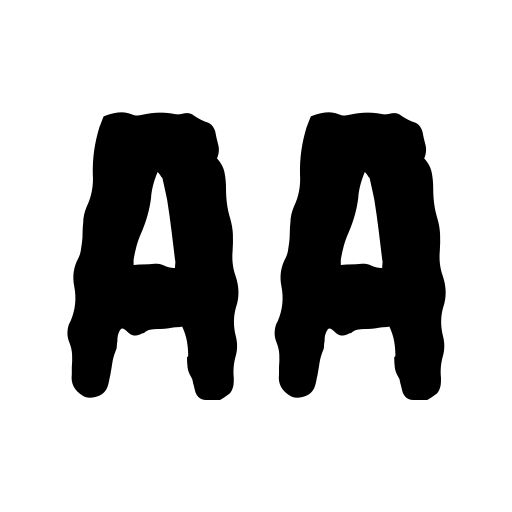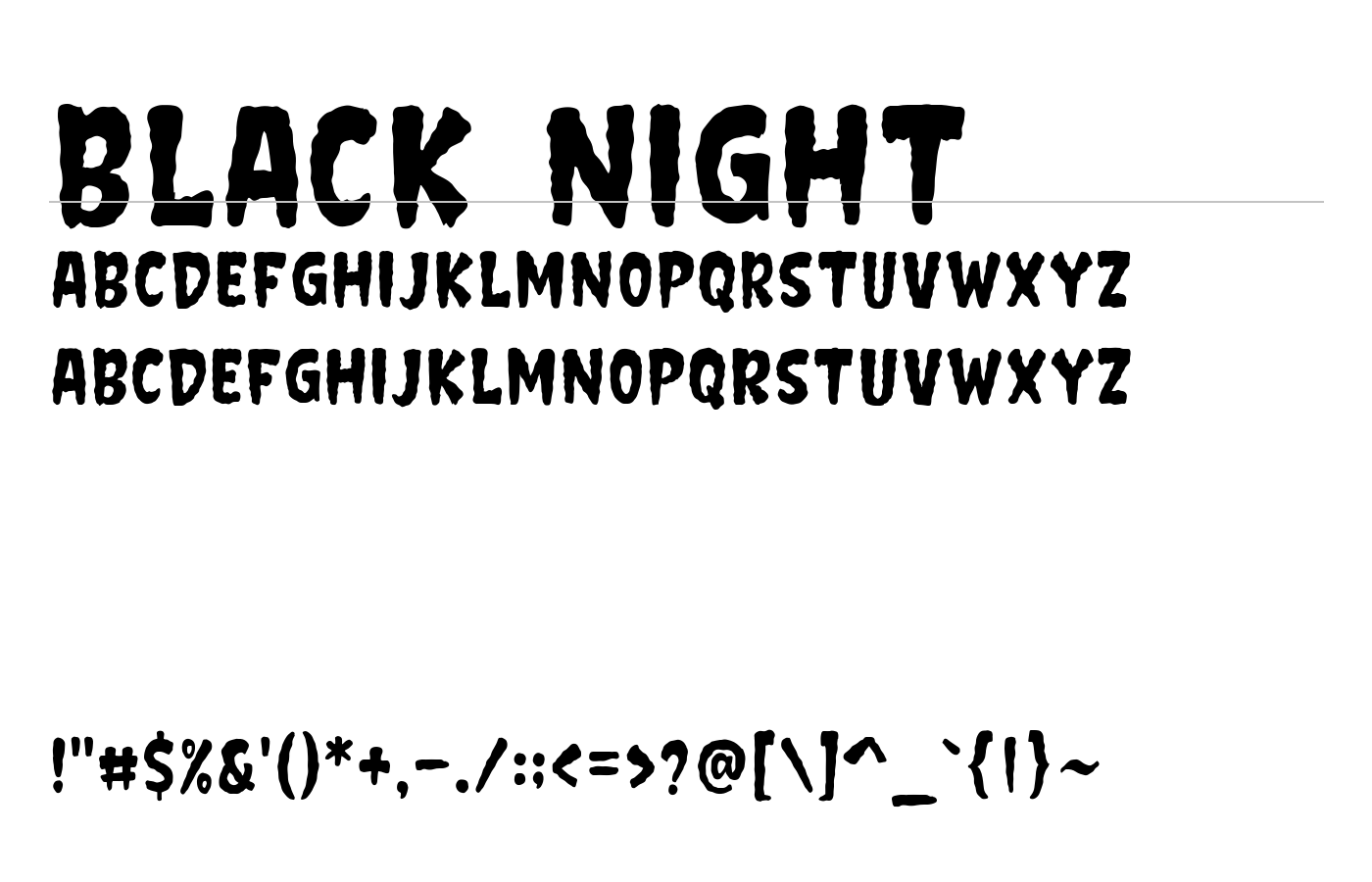
Black Night is a bold, casual sans serif font with a hand-drawn, slightly rough texture that gives it a lively and informal personality. Its uppercase letterforms are chunky and irregular, creating a playful yet strong presence perfect for creative projects, posters, or branding that aims for a fun and approachable vibe. This font works well where a friendly, eye-catching style is needed, especially in display settings rather than body text.
Black Night Font
About Black Night Font
| Font family | Black Night Font |